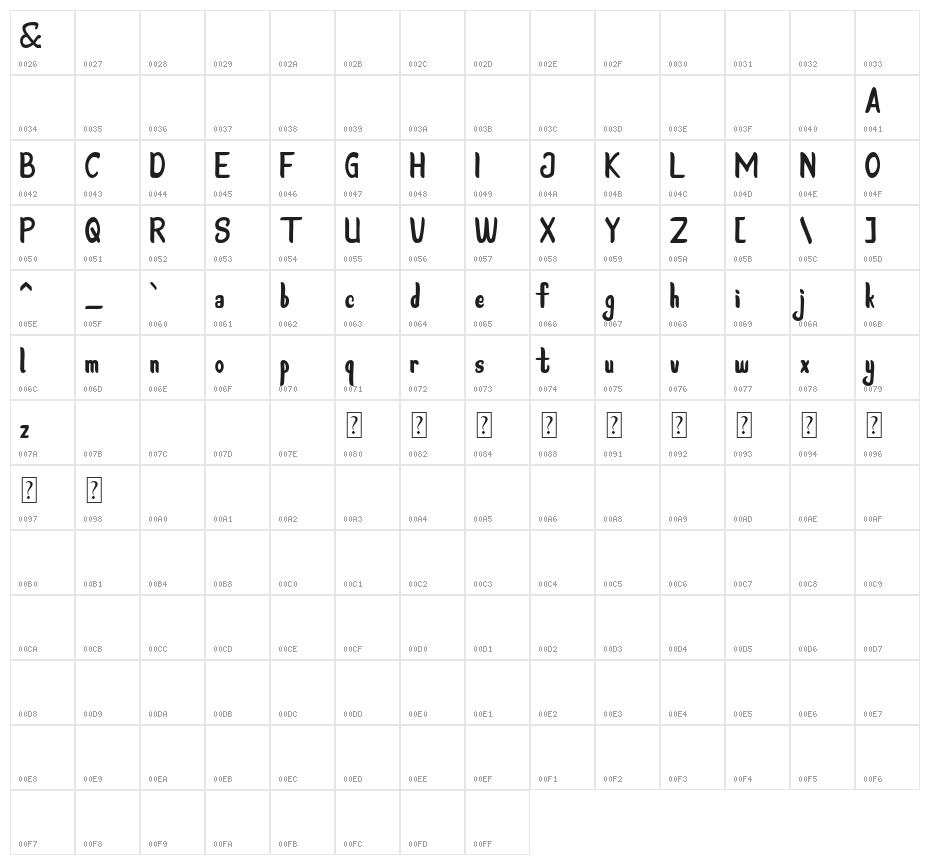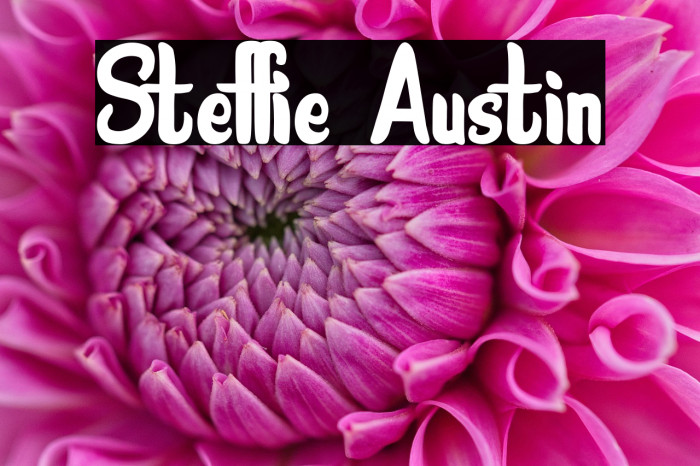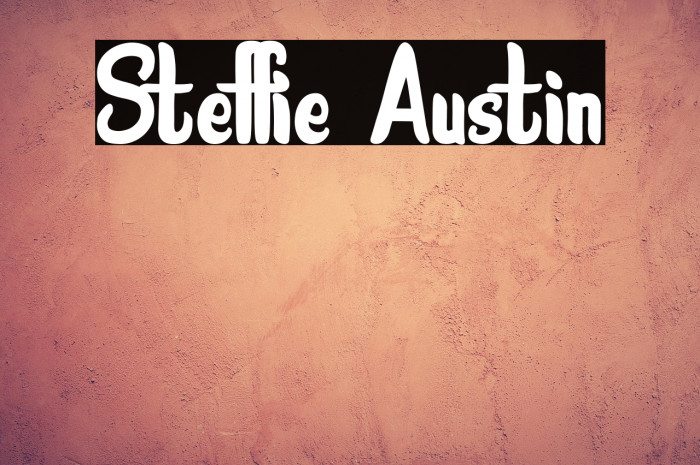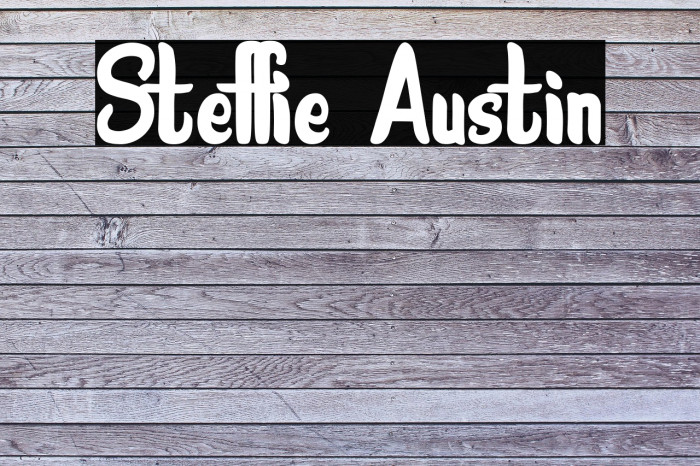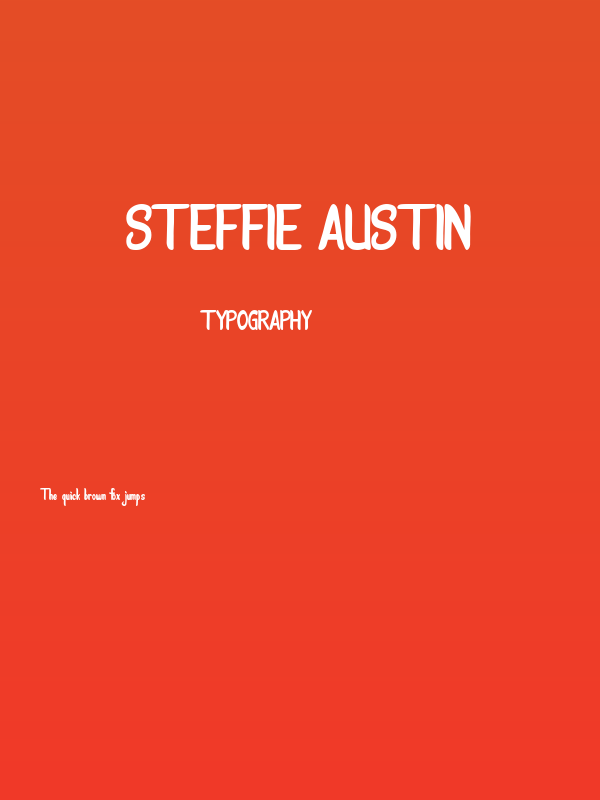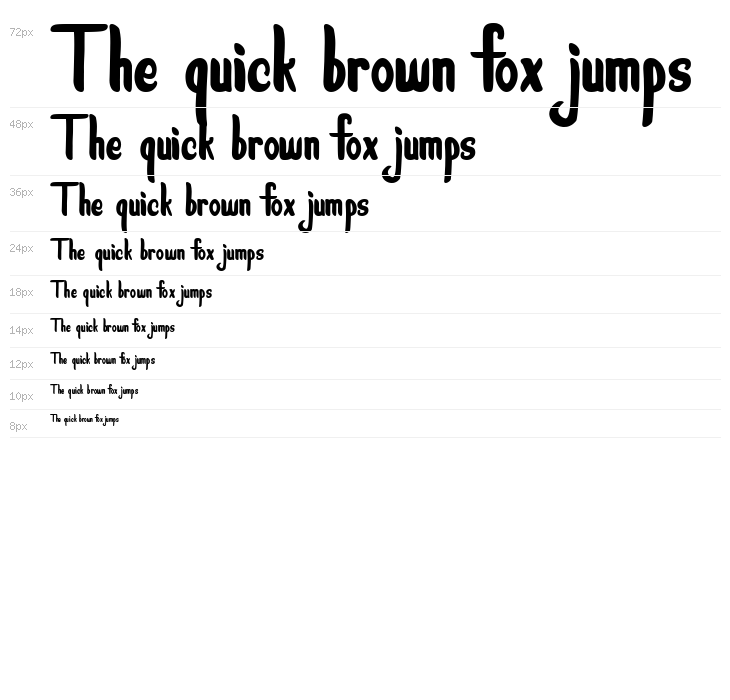
Steffie Austin Font
Steffie Austin Description
This font features a playful and bold style with a handwritten appearance. The characters are rounded and slightly irregular, giving it a casual and friendly feel. The uppercase letters are tall and slightly condensed, while the lowercase letters maintain a consistent height with a few unique flourishes, such as the loop in the lowercase 'g' and the tail of the 'y'. The ampersand is particularly distinctive with its flowing, cursive-like design. This font's overall look is both approachable and dynamic, making it suitable for a variety of creative applications.